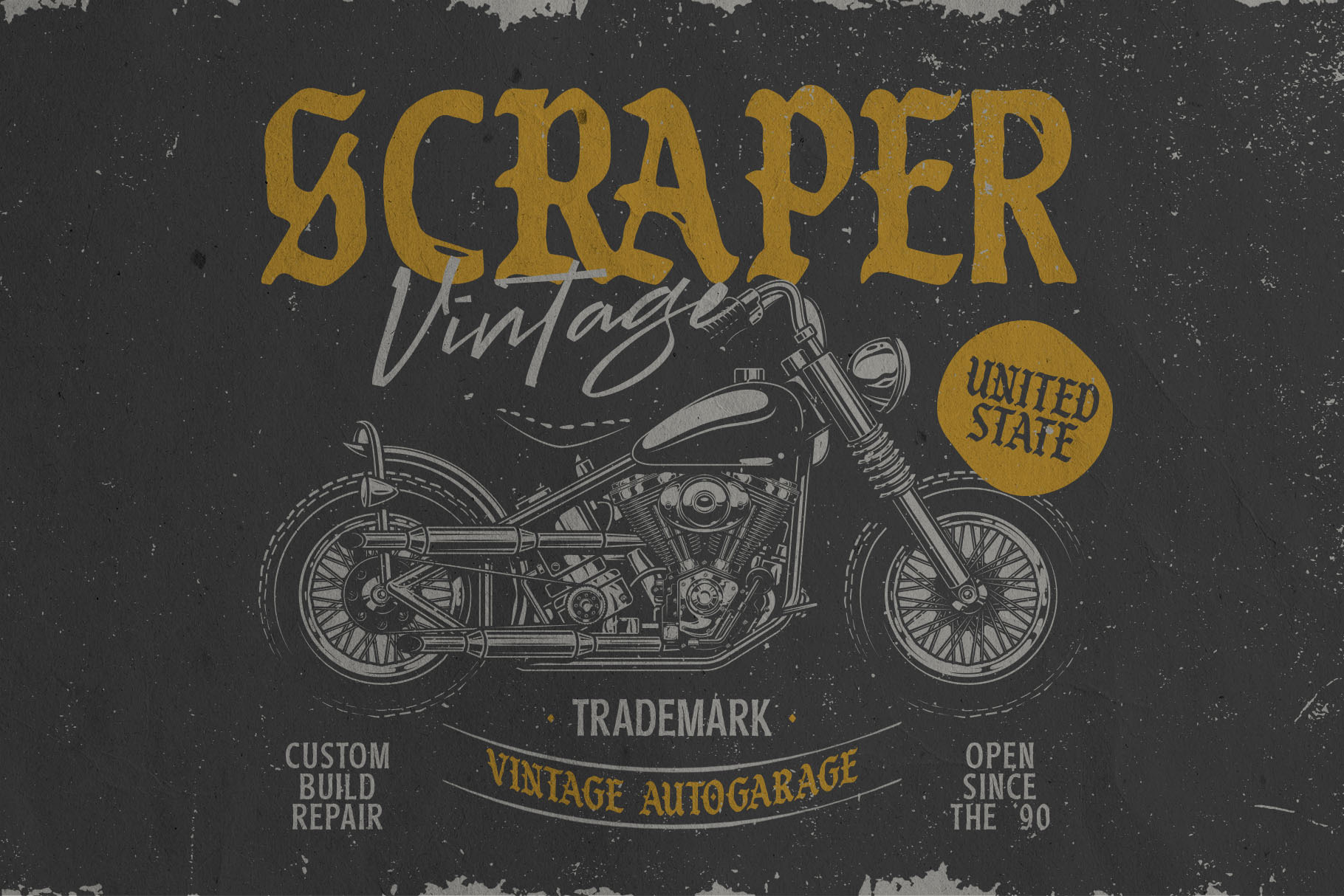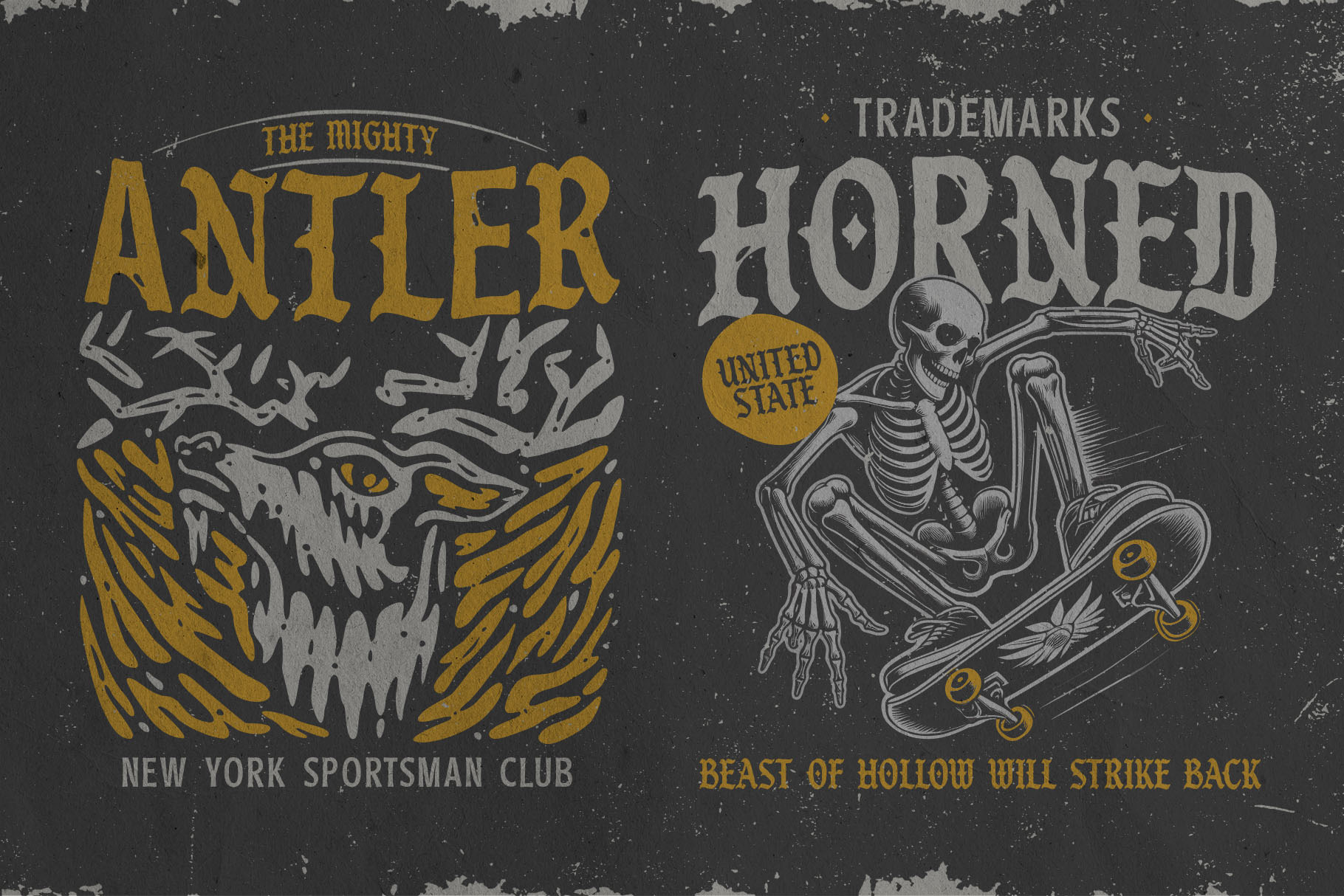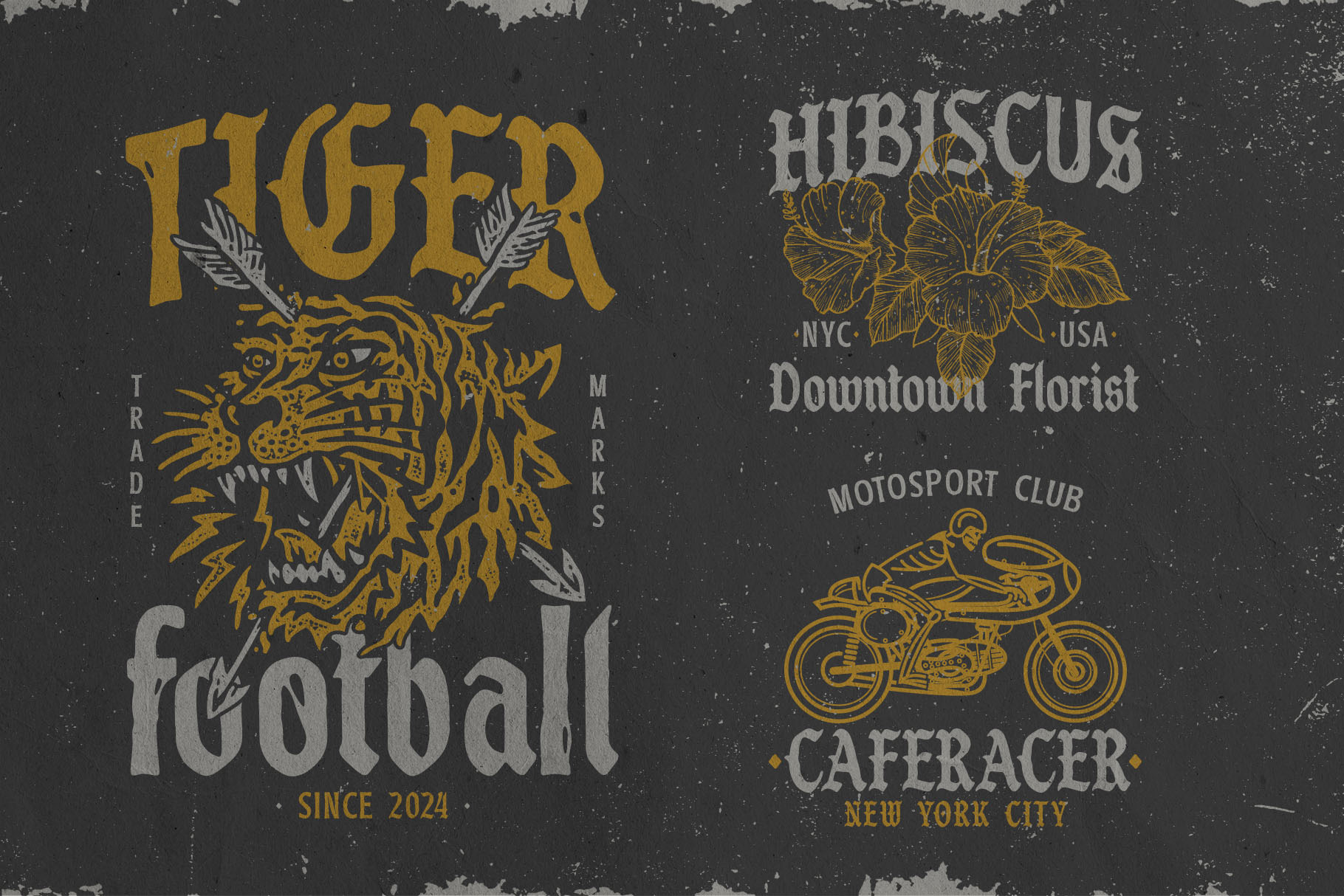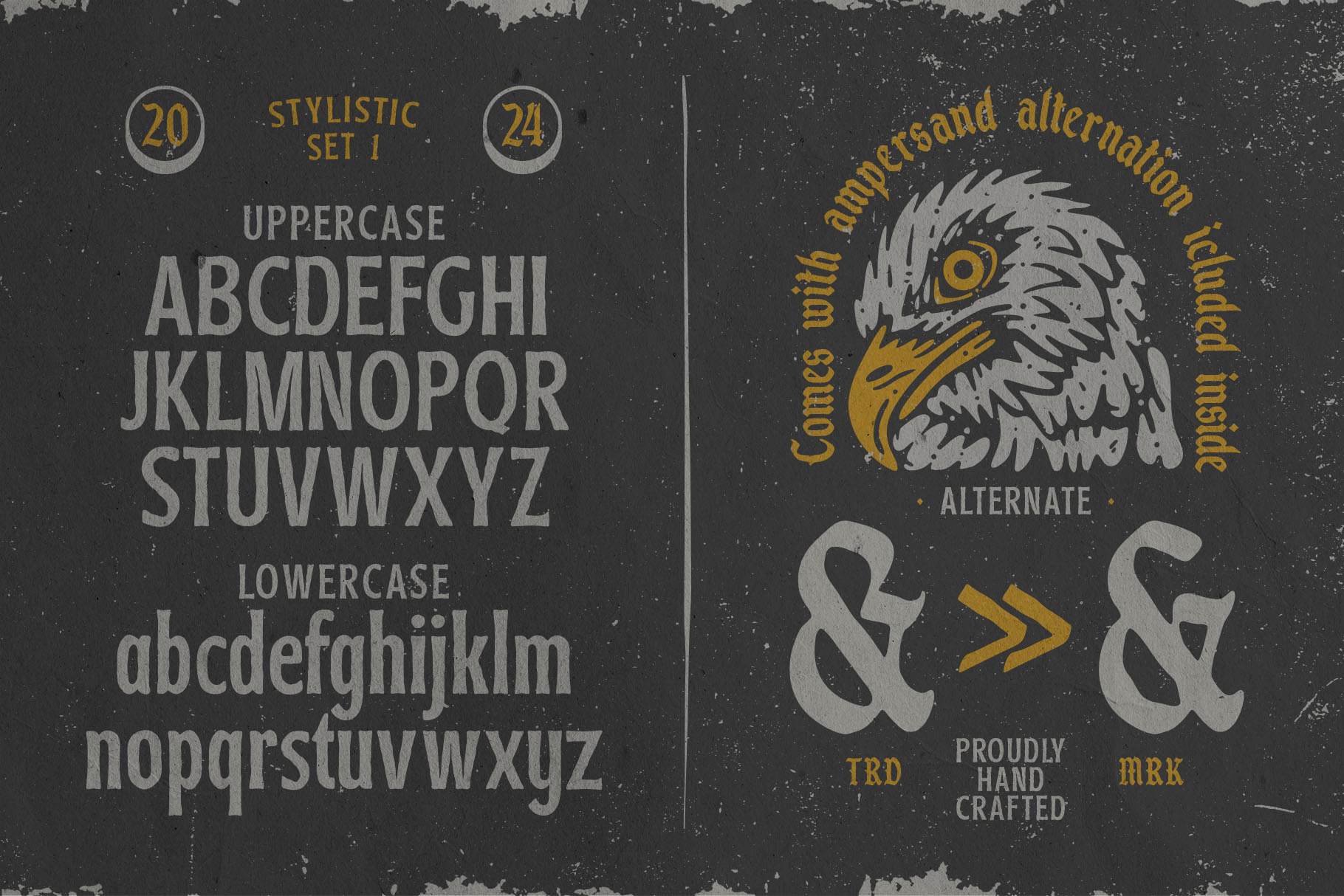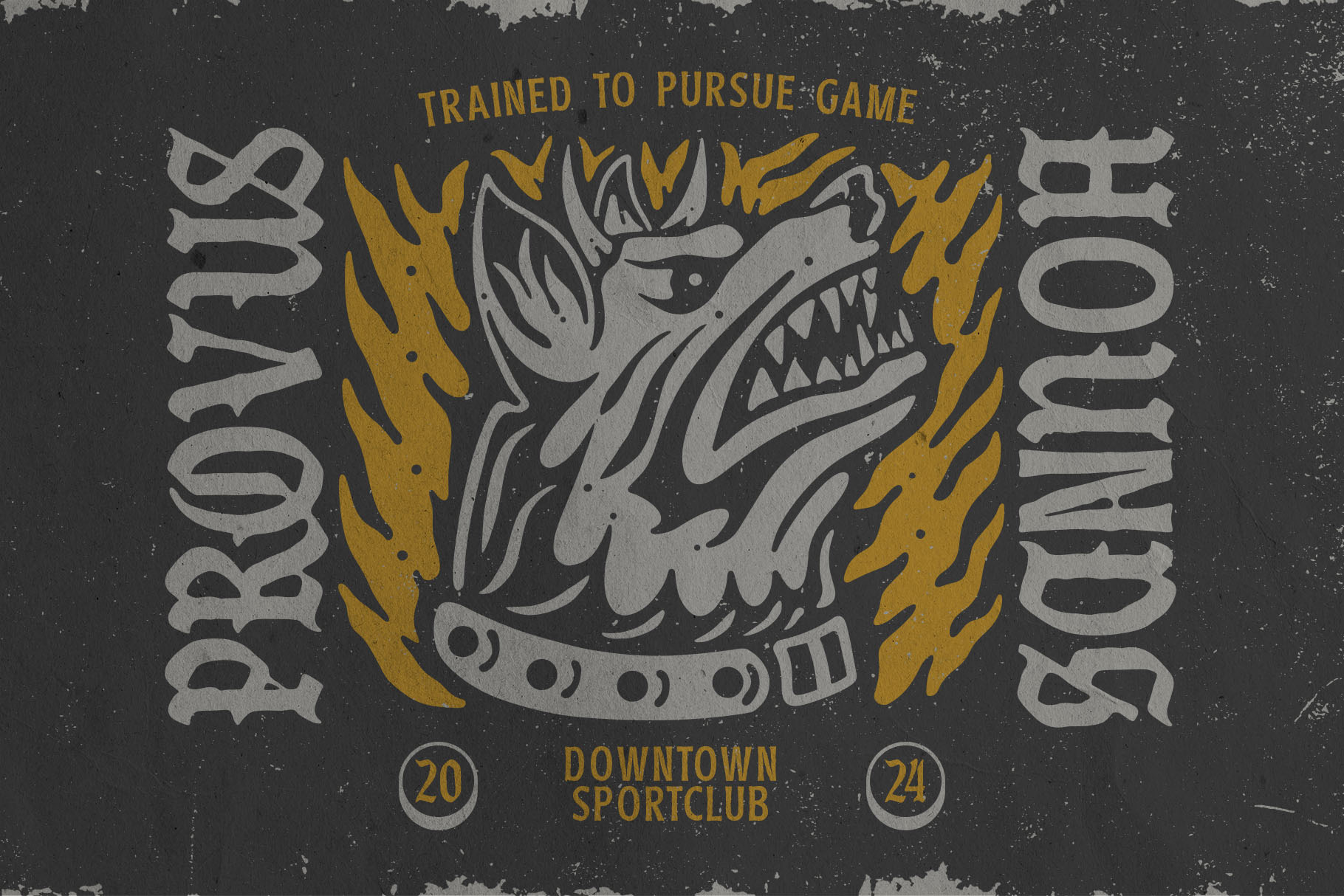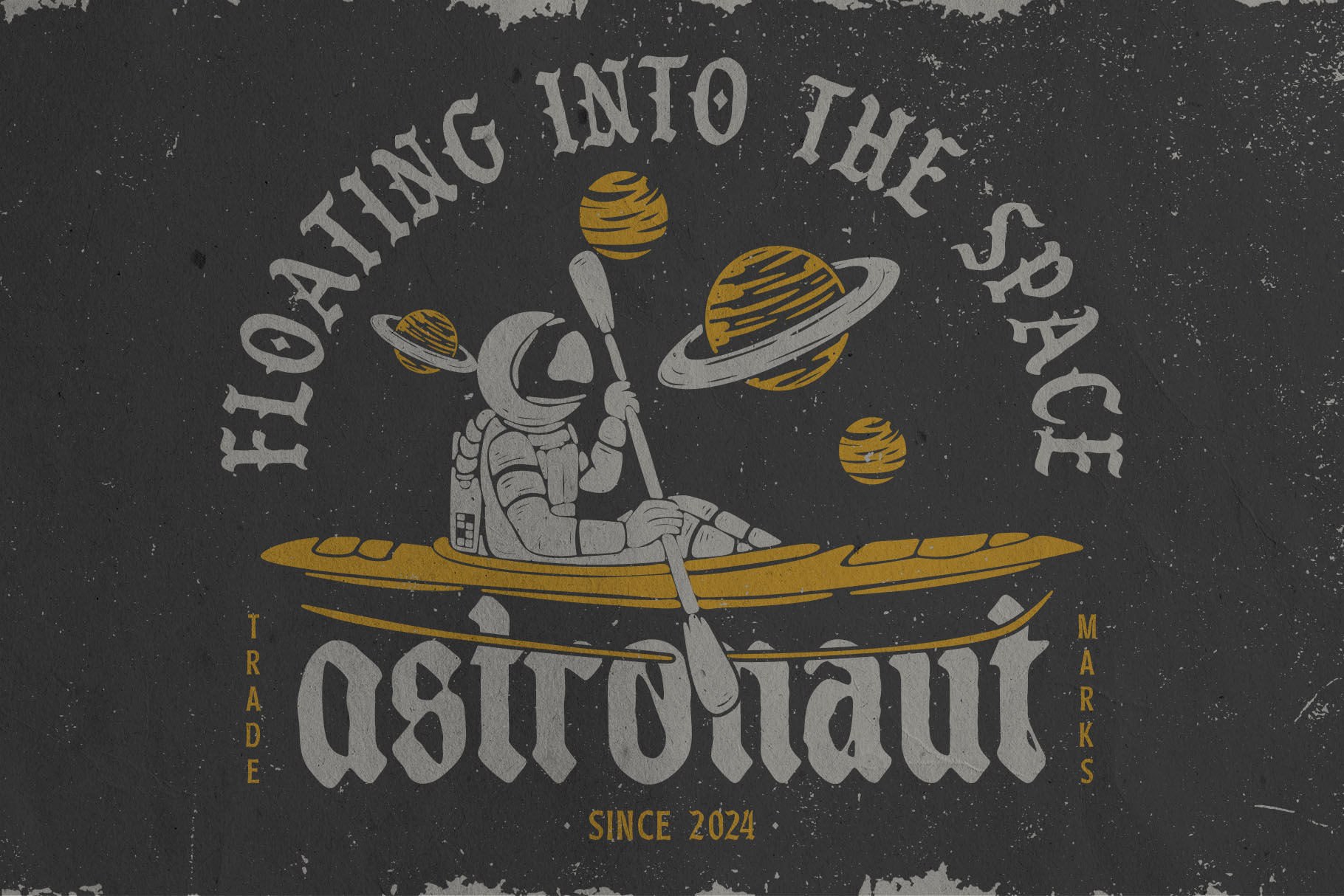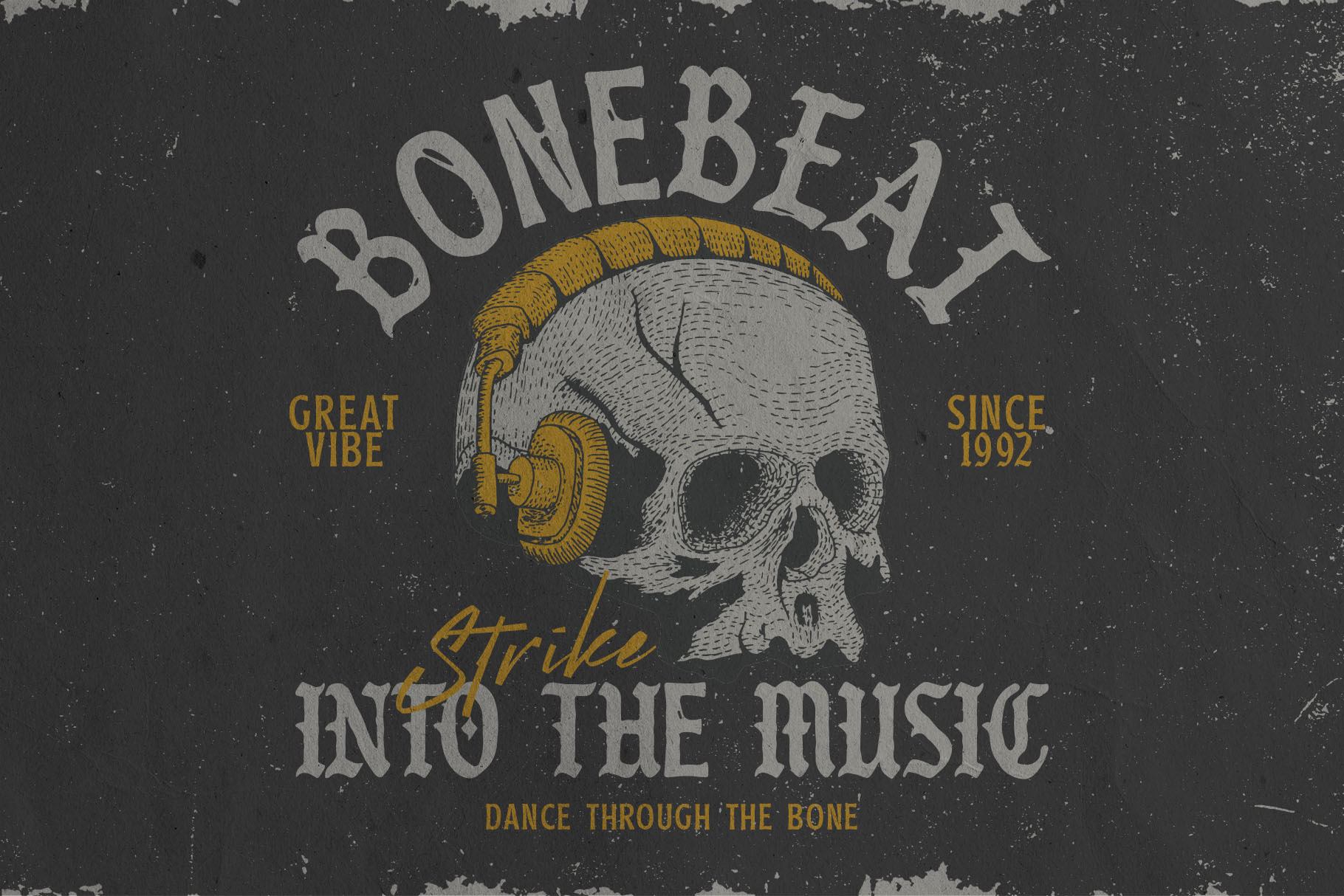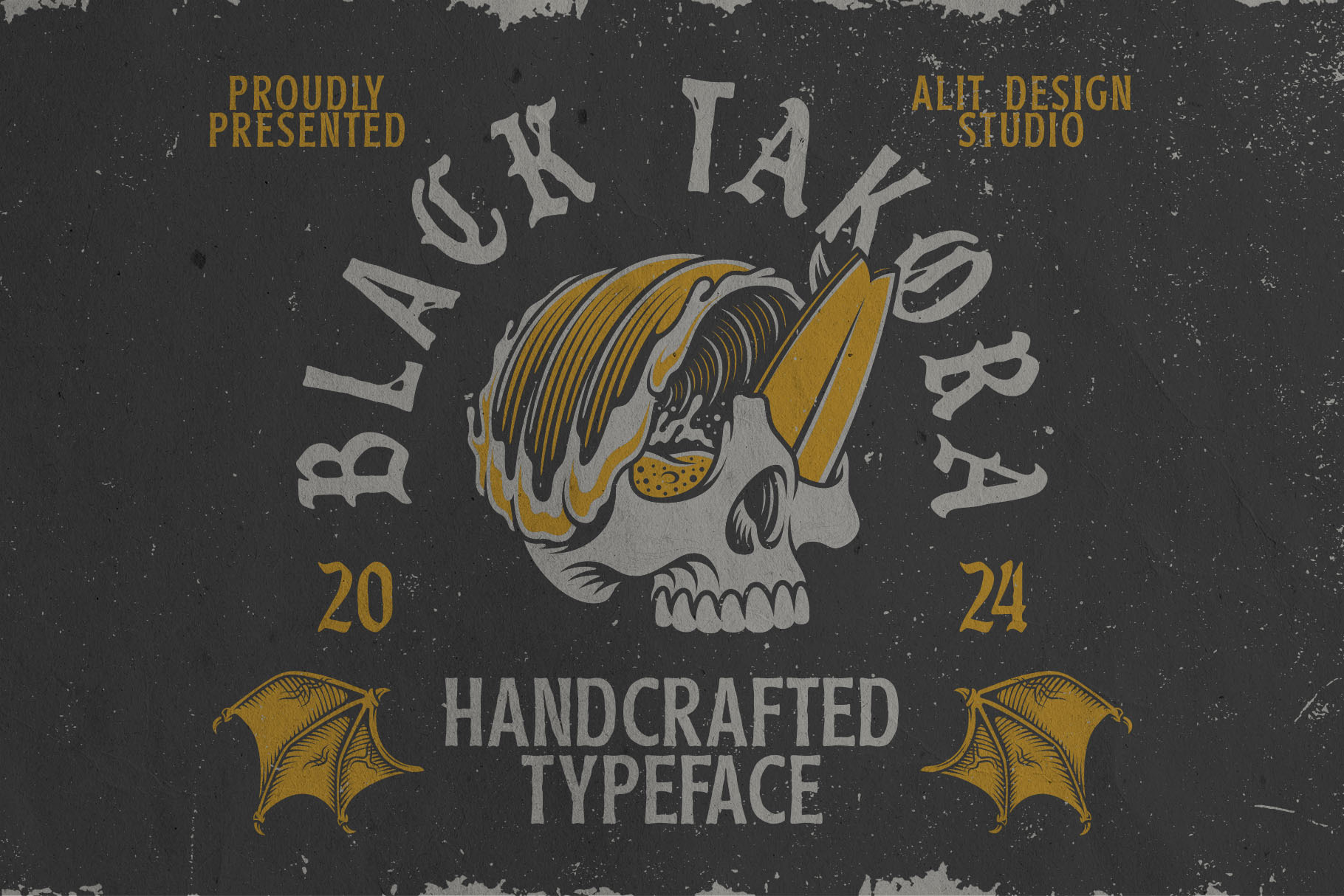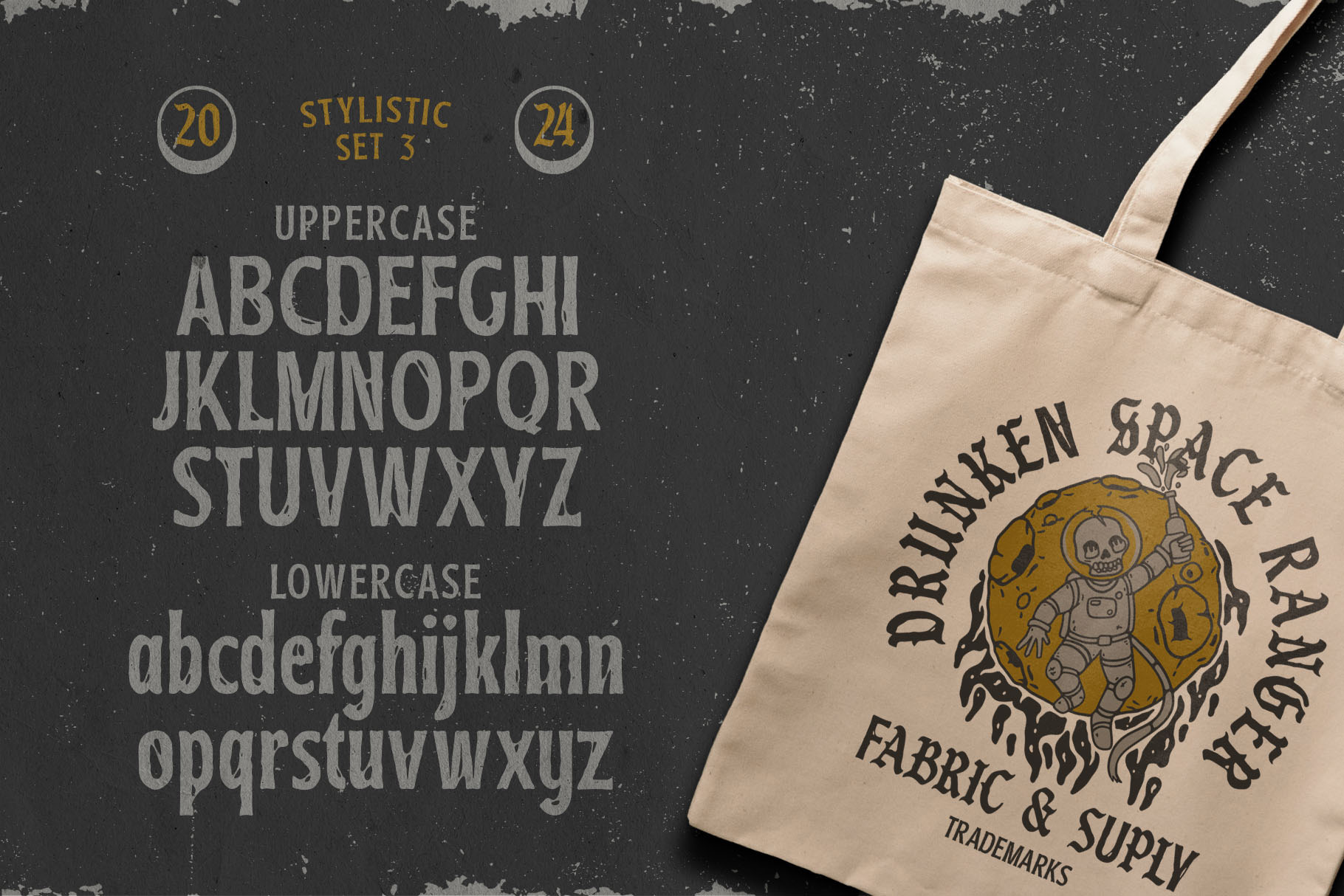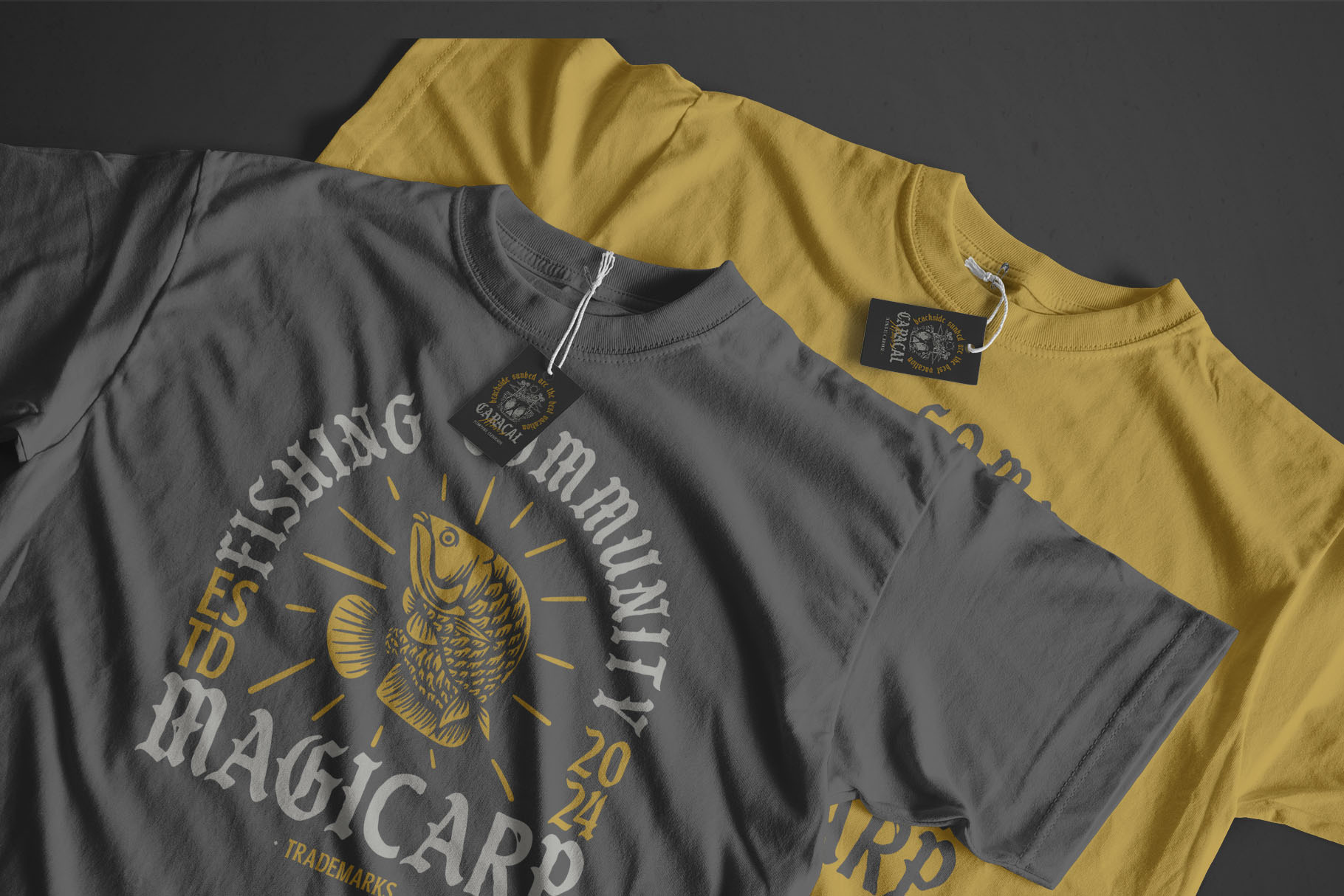
Unleash the power of vintage design with Black Takora Typeface. This rugged blackletter font exudes a bold and timeless aesthetic, perfect for projects that demand a touch of nostalgia and strength. With its rough, hand-crafted edges and meticulously designed characters, Black Takora adds a distinct vintage charm to any creative work. Key Features: - Rough Vintage Blackletter Style: Black Takora stands out with its rough, textured strokes, delivering an authentic blackletter experience infused with a vintage vibe. Ideal for posters, logos, apparel, book covers, and more. - Comprehensive Character Set: Featuring a massive collection of 808 characters, this typeface ensures you have the versatility you need. From standard characters to special symbols, Black Takora covers it all. - Alternatives & Ligatures: Elevate your typography with a range of stylistic alternatives and ligatures, allowing you to create unique and customized text layouts with ease. - Multilingual Support: Black Takora Typeface offers extensive multilingual support, making it the perfect choice for global projects. It includes characters for a variety of languages, ensuring your designs can communicate effectively across borders. - PUA Encoded: Enjoy easy access to all glyphs and characters thanks to PUA Unicode encoding, ensuring that even non-standard characters are at your fingertips. Perfect For: Whether you're designing for a vintage-themed project, creating impactful branding, or simply looking to add a rough, authentic touch to your work, Black Takora Typeface is your go-to font. It combines the power of traditional blackletter with a raw, rustic aesthetic, offering both versatility and a strong visual identity. Bring your designs to life with the vintage strength of Black Takora Typeface—where tradition meets modern creativity. | Black Takora Blackletter Font | alit design